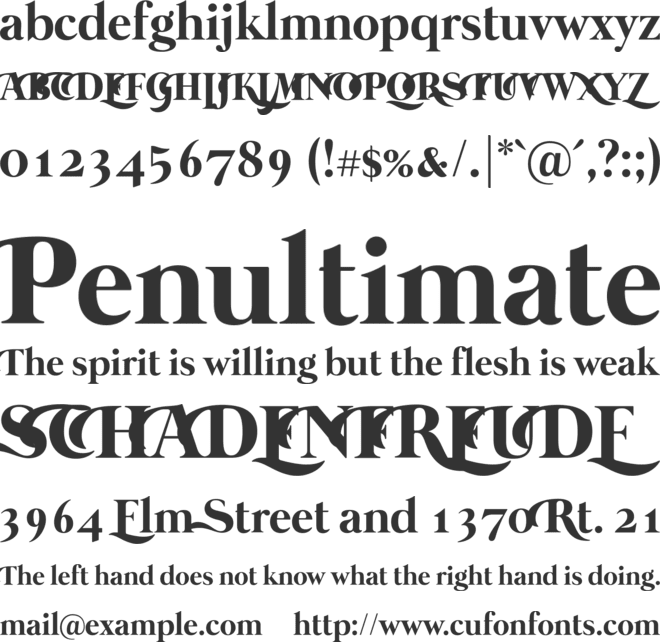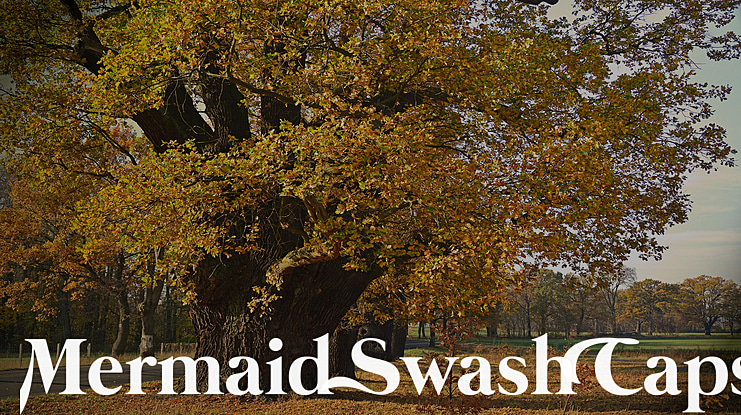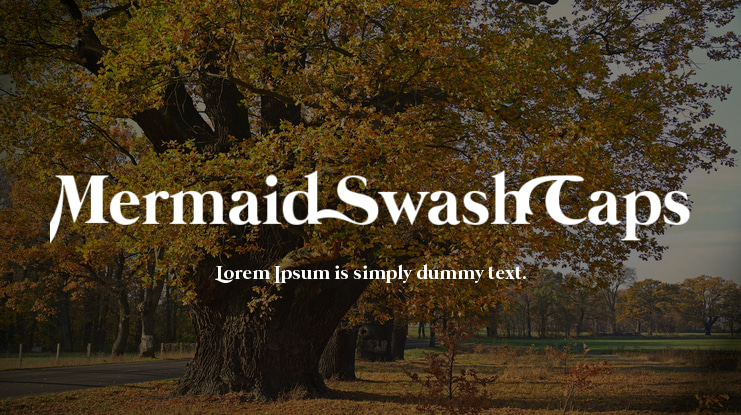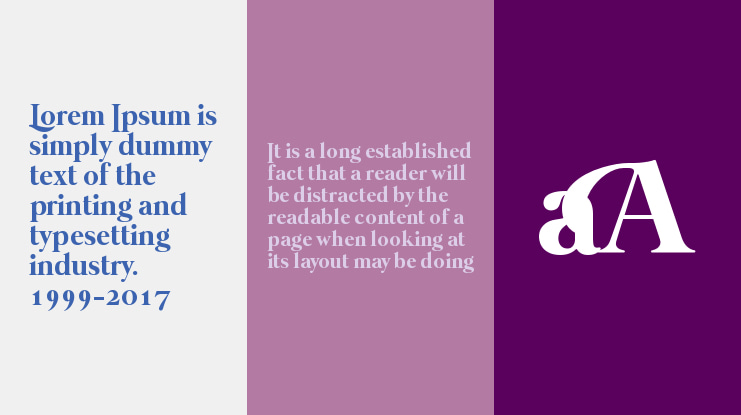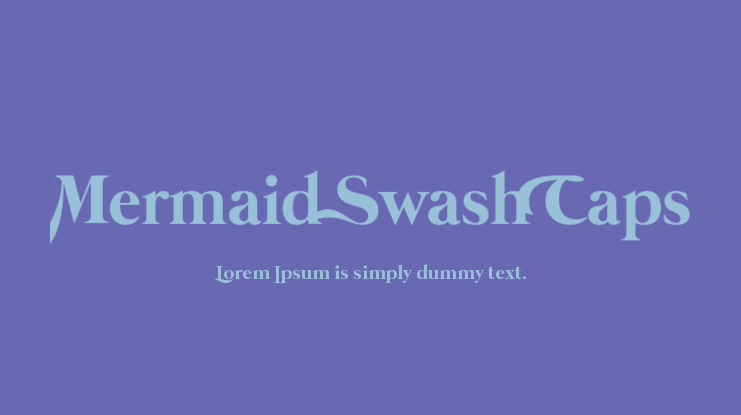
Mermaid Swash Caps Font Family
Mermaid is a high contrast transitional serif face with round, smooth curves. It contains swash caps and a basic set of diacriticals and special characters. Mermaid is free for personal use, but donations are very much appreciated! Please email me at  for information about commercial licenses.
Swash caps are now included in a separate font file for easier access.